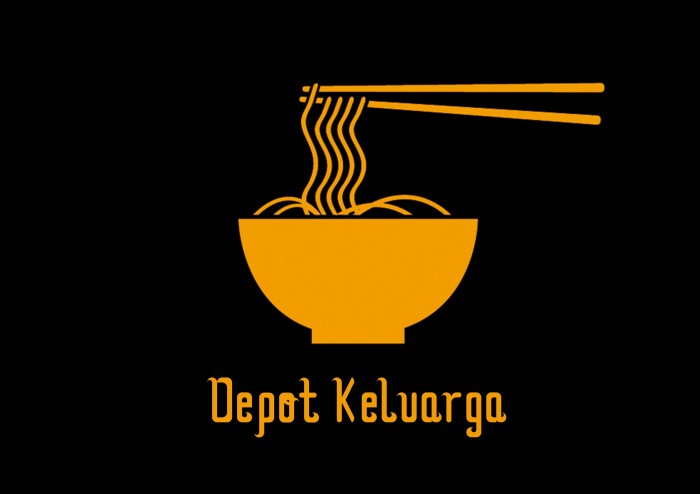
• this font is based on chicken noodle shape of Depot Keluarga (one of a noodle stall in Surabaya, Indonesia). It has a small curve on its point to describe the elastic characteristic of the noodle. The noodle of Depot Keluarga has a thin size, so that this font has thin enough size too. Your comments and suggestions are welcome :)
bagosss
nice fontt!:D
nice work.. btw.., kalo isa huruf 'p'-nya juga dikasih ekor.. biar totalitas.. :)
Suka O nya :)
Nice looks like javanese culutural font, like it!
Apikk. Love the "o"
the font design is really artistic and unique. every curve of the font is similar to traditional javanese words or aksara jawa. And it's a good font to since it easy to read :)
i love this font (y)
bagussssss fontnyaa
Verry good bel, I like your font. So beautiful :D
here a sample of this font :)
keren, enak dilihatnya. nice font!
nice work bell .udah konsisten tapi ekor a kecilnya sedikit beda sama yg lain mungkin bisa di samakan? :)
well made fonts! very consistent!
Bagus bel! Udah konsisten. Good job!
keren bell!!
Sukak Belll kayak mie
nice font !
fontnya unik !
awww... i like the curve! so elegant
Super neat and consistent! Well done!
Bagus bel! Wes apik pol pokoknya XD konsisten, enak diliat dan cocok buat mie. Good job ^^
your font just amazing! :3 love the sample
Hallo... keren fontnya keliatan ciri khasnya mienya.. good job
sooo uniqueee bell.. keep going :)
overallnya bagus! cuma uppercase D nya kurang keliatan kaya D?
Nice typeface! Unique and neat.
bagus, meliak liuk kayak mie
Bagus banget fontnya.... Lucu, terlihat lembut dan enak dibaca. Tp huruf D nya kurang menggambarkan D, hampir terlihat huruf O. GOOD JOB!!!!
cute >< nice font
like the curve! :D
dinamis. keren!!
nice font :)
Kerenn Bell! Cocok lah buatttttt penjual Mieee
udah konsist, terus karakter mie nya juga udah ada
good job !
Bagus :D udah konsisten, dipertahanin buat huruf lainnya yaa
apik bel :)